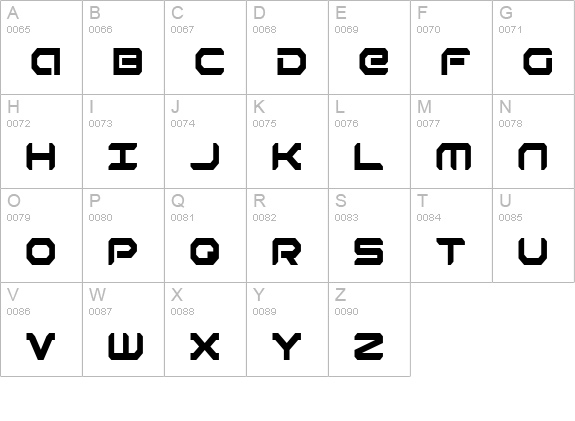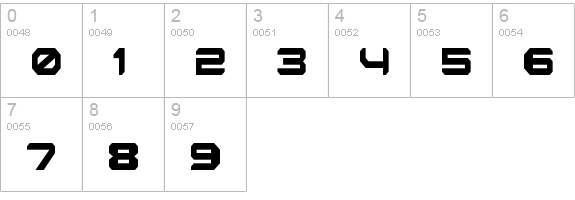
Robotaur Condensed is a distinctive, condensed-width variant in the Robotaur typeface family \xE2\x80\x94 well suited to design and typography projects.
Robotaur Condensed font is a modern and sleek typeface designed to bring a futuristic touch to your projects. With its clean lines and geometric shapes, this font exudes a sense of precision and technology. Perfect for digital designs, branding, and display purposes, Robotaur Condensed font is versatile and eye-catching. And the best part? It's available for free download at FontsMarket.com! Don't miss out on the opportunity to add this unique and stylish font to your collection without any cost. Download Robotaur Condensed font today and elevate your designs with its contemporary aesthetic.